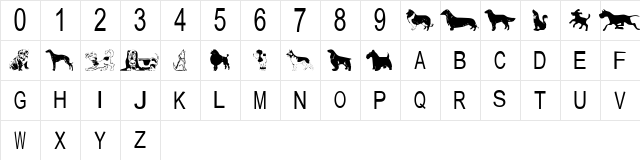
tungfont dog Regular
Design Context for tungfont dog Typeface
tungfont dog takes a measured approach to typography — its balanced proportions and neutral character make it a reliable workhorse for both digital and print work.